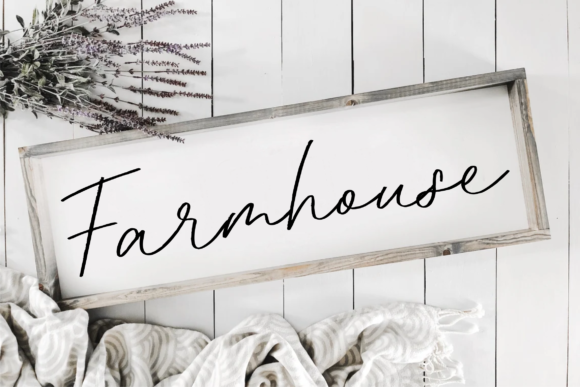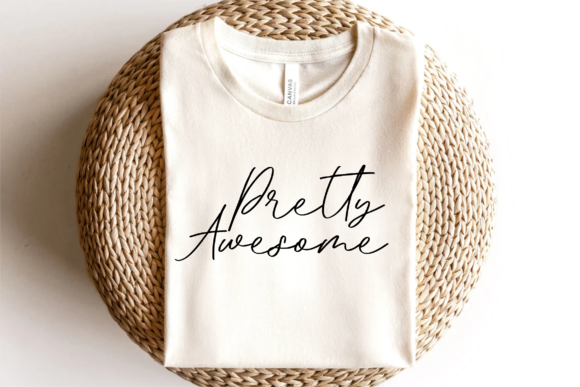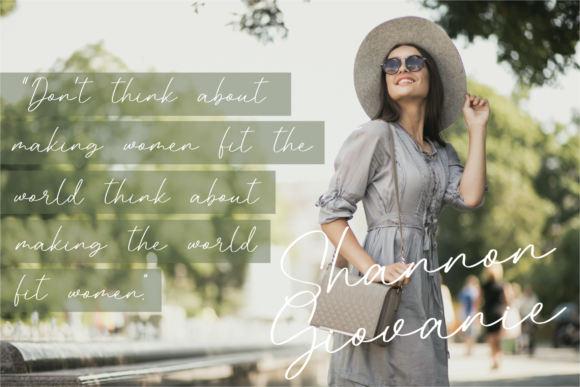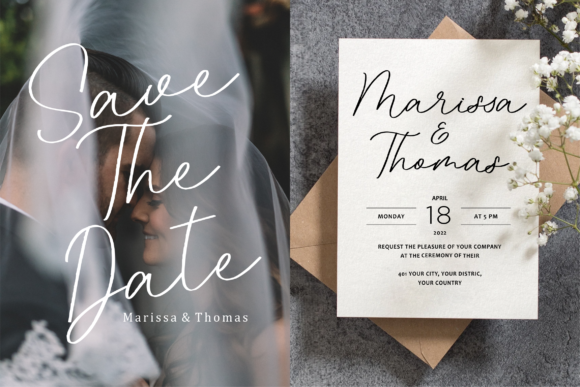
About Mochiffissa Font
Mochiffissa is a slim and delicate script font.
It is perfect for product packaging, branding project, magazine covers, social media, wedding, or just used to express words above the background.